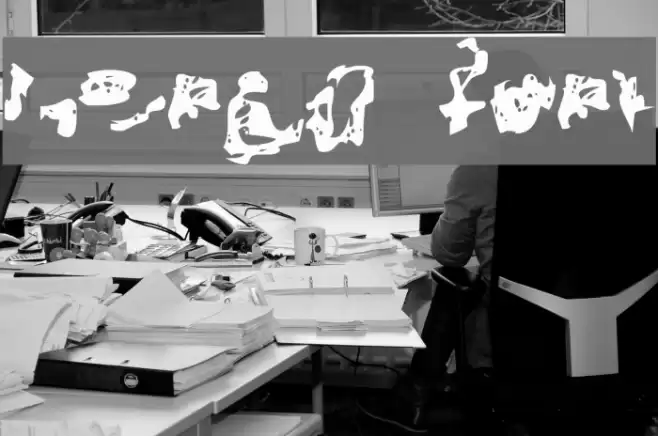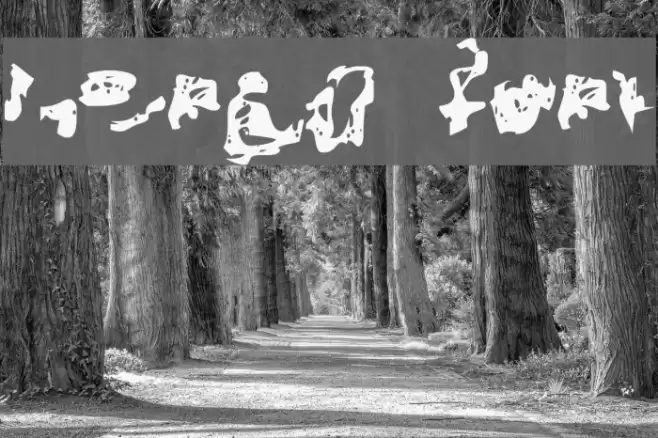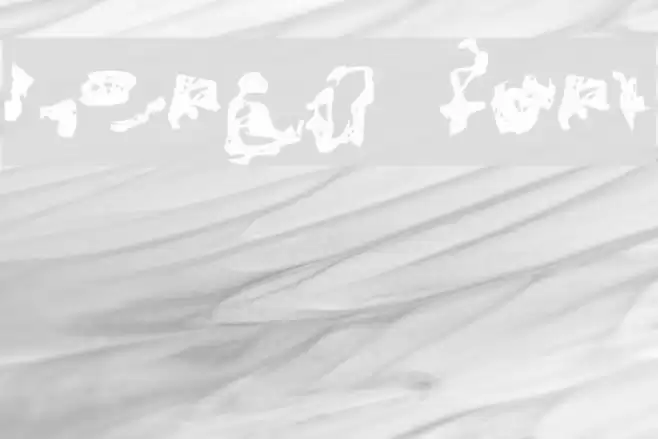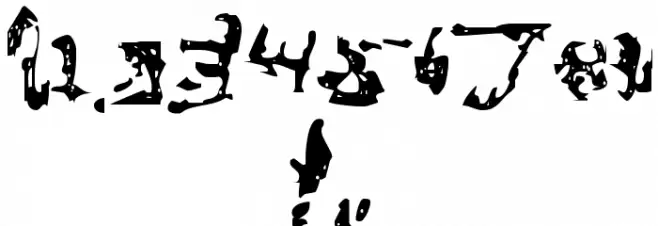
Menga Font
Menga Description
This font features an abstract and highly artistic design, with characters that appear to be hand-drawn with a brush or pen. The strokes are bold and irregular, giving each letter a unique and expressive appearance. The overall look is chaotic yet intriguing, with a sense of movement and energy. The uppercase and lowercase letters maintain this dynamic style, while the numbers and special characters follow suit with similar artistic flair. This font is not suited for readability but rather for making a bold visual statement.
An abstract, artistic font with bold, irregular strokes and a chaotic style from Uncategorized fonts.
- Proposed Projects: Ideal for artistic projects, album covers, posters, or any design requiring a bold, expressive statement.
- Character Spacing: Tight
- Use Case: Logos, Posters, Artistic projects